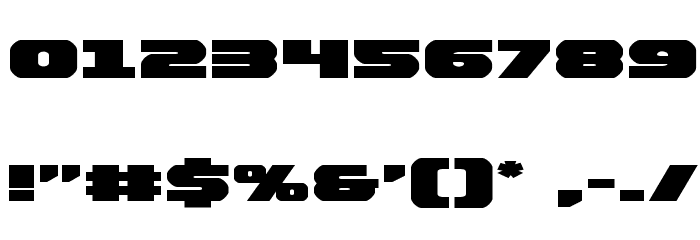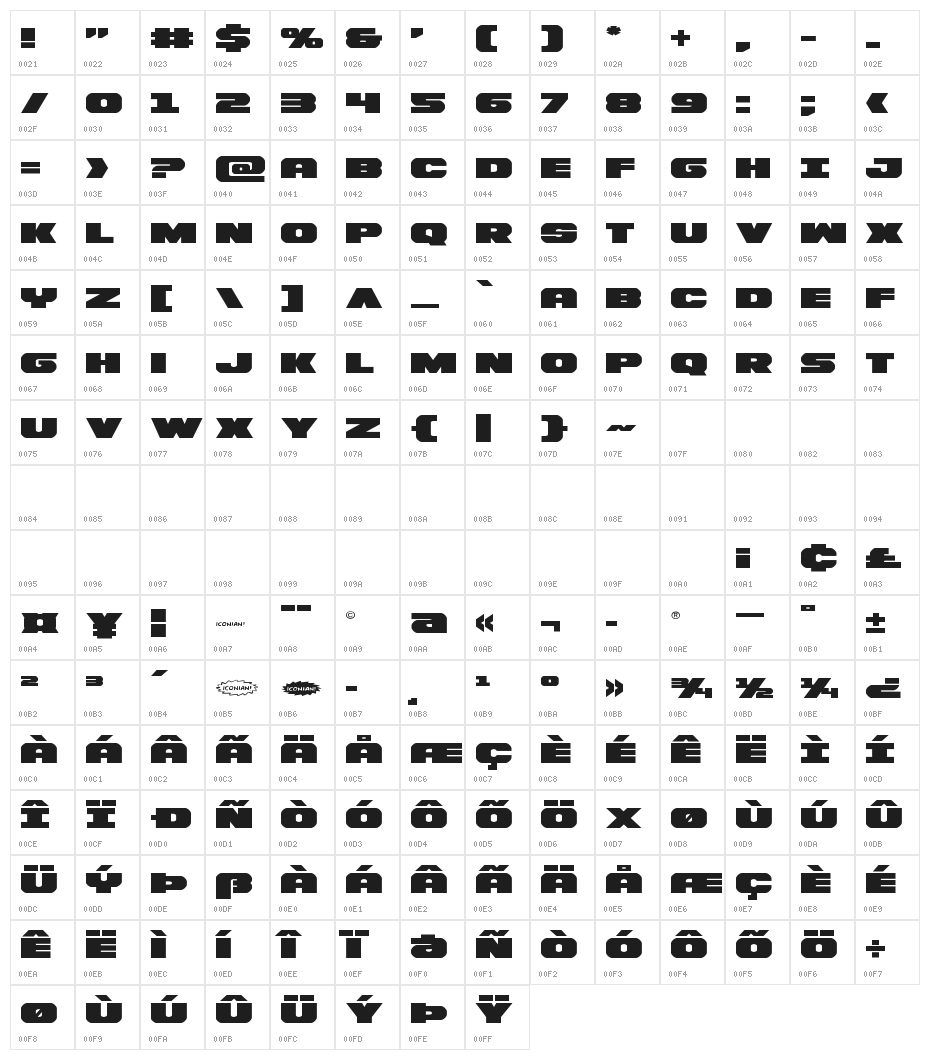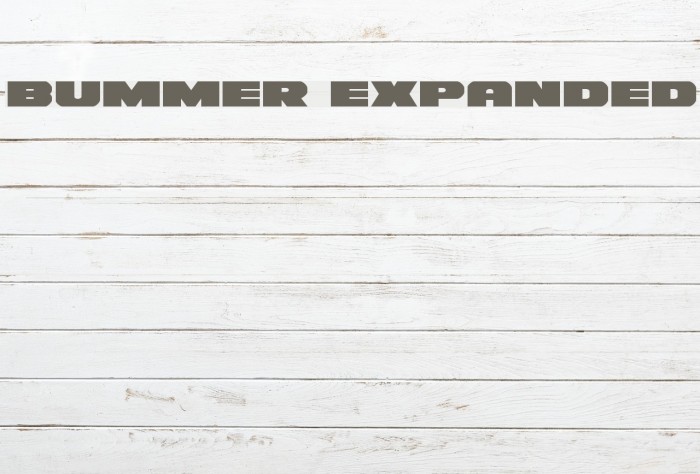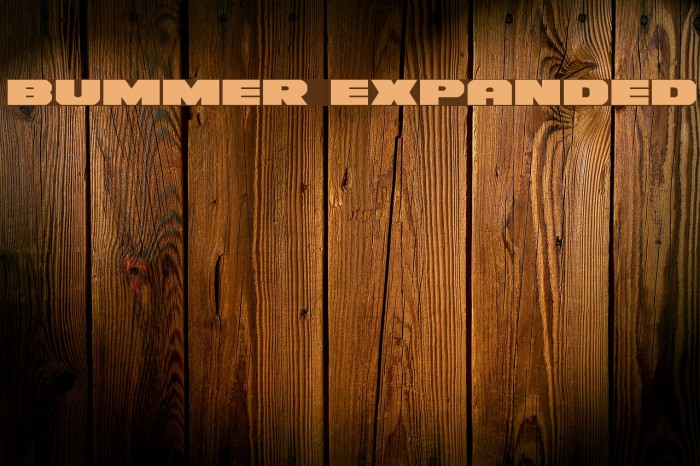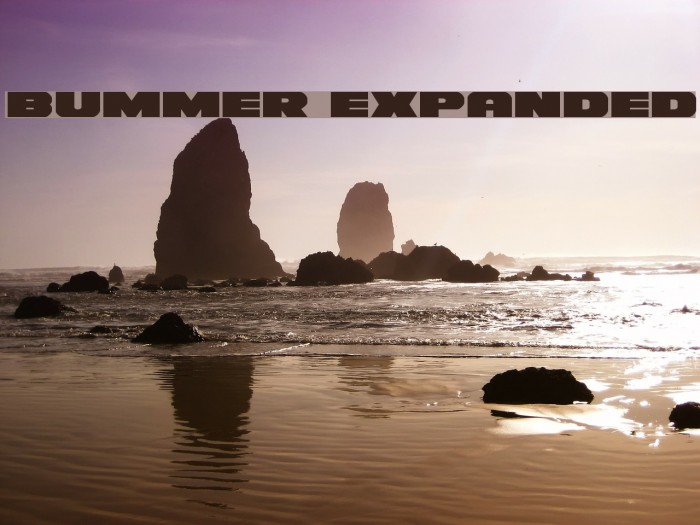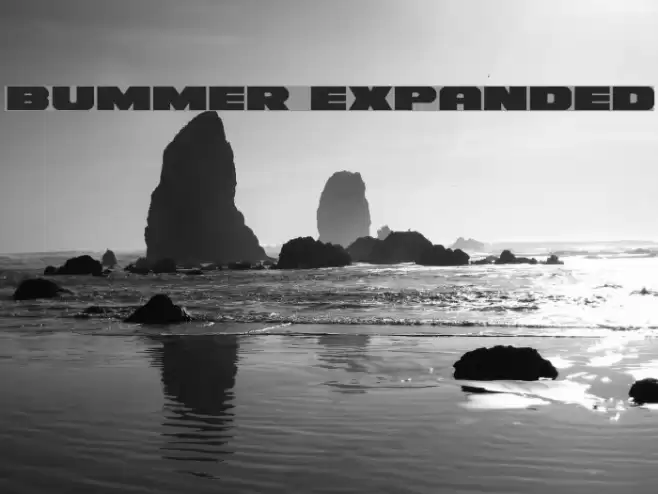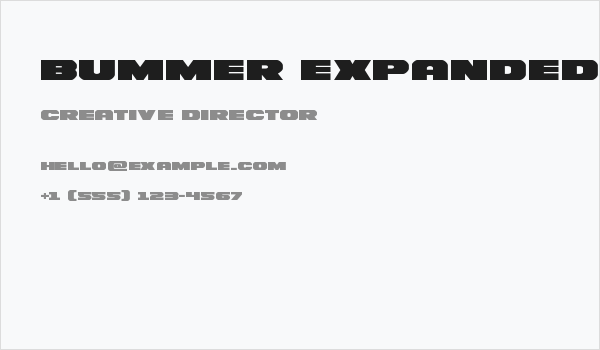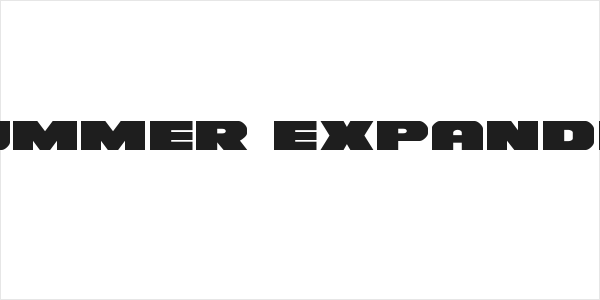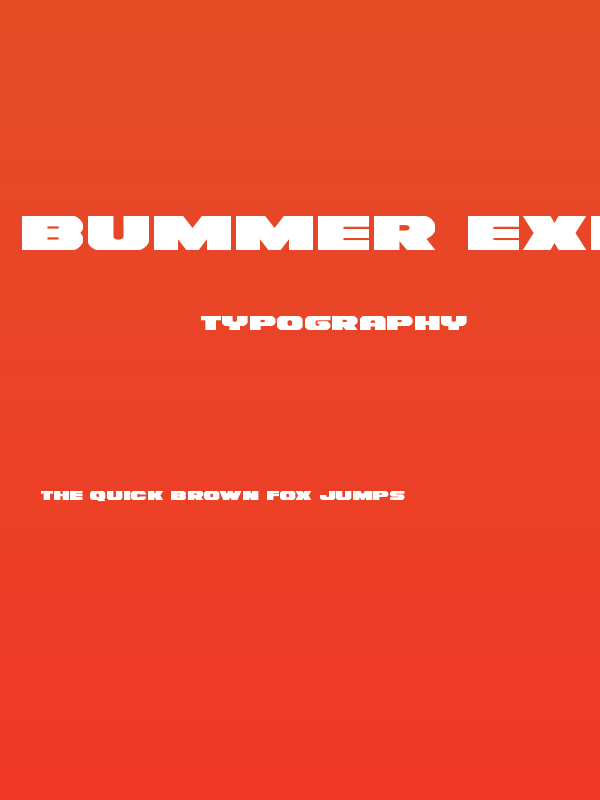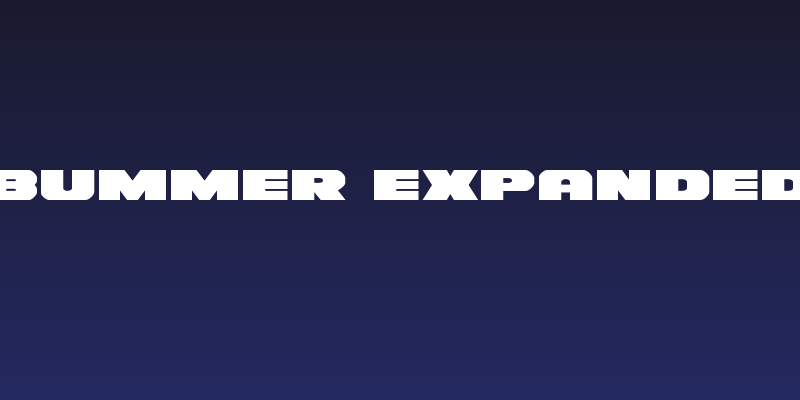
Bummer Expanded Font
Bummer Expanded Description
This bold and striking font features an expanded, blocky design with strong geometric shapes. The characters are uniformly wide, creating a powerful and impactful presence. The uppercase letters are particularly prominent, with a consistent height and width that enhances readability. The numbers and special characters maintain the same boldness, ensuring a cohesive look across all text elements. The font's style is reminiscent of industrial and futuristic themes, making it suitable for projects that require a strong visual impact.
| Proposed Projects | Ideal for posters, headlines, branding, and any design requiring a bold statement. |